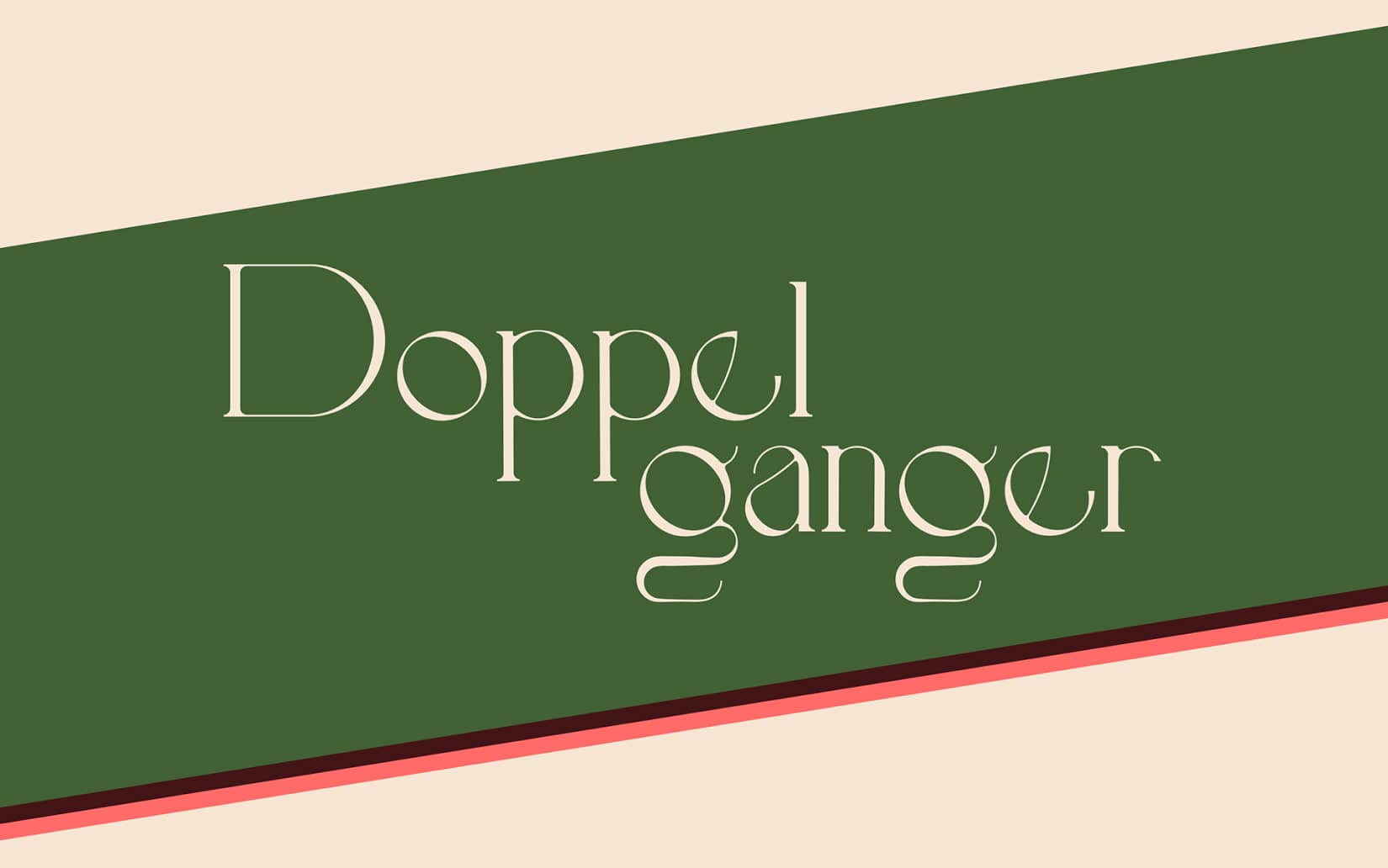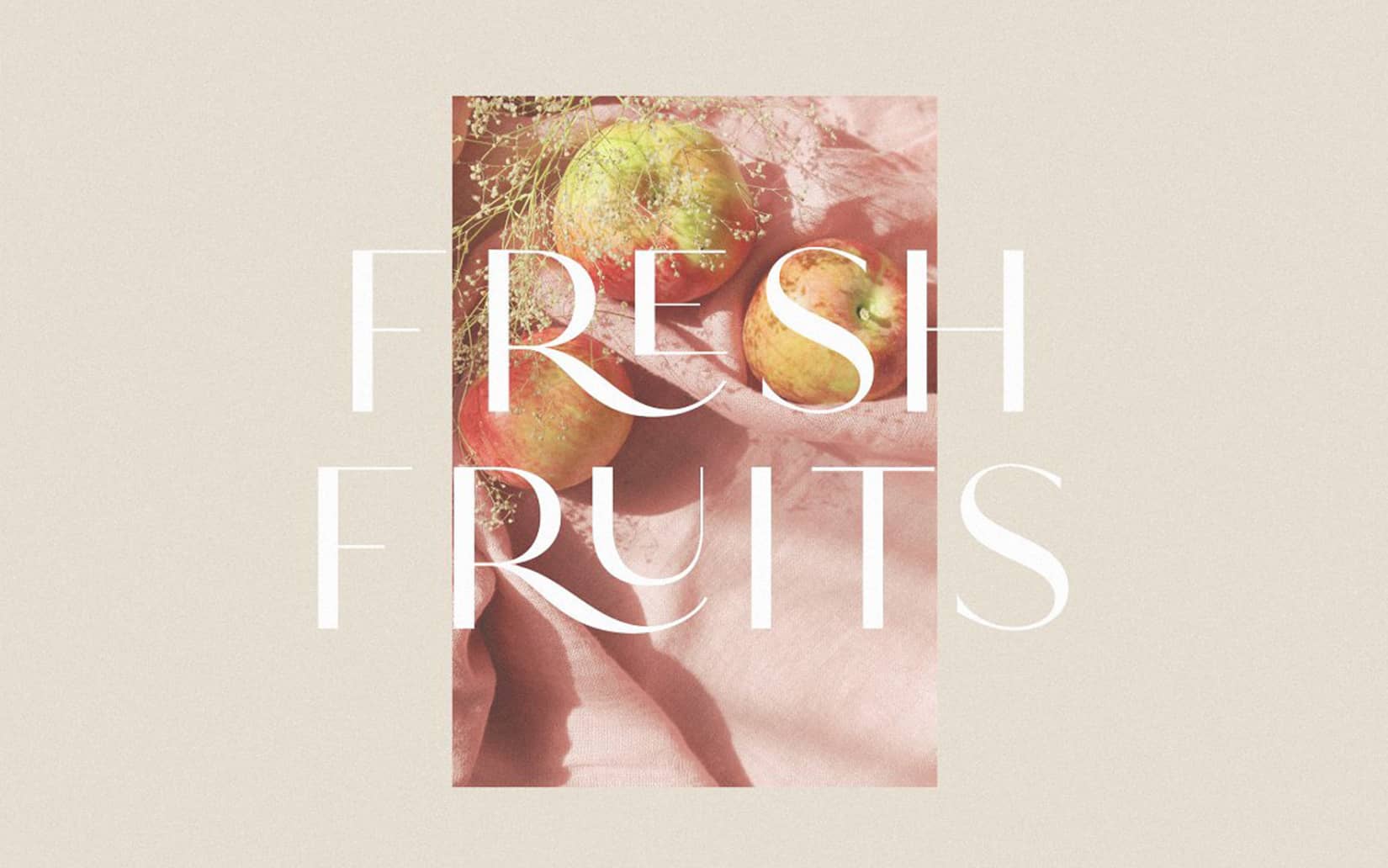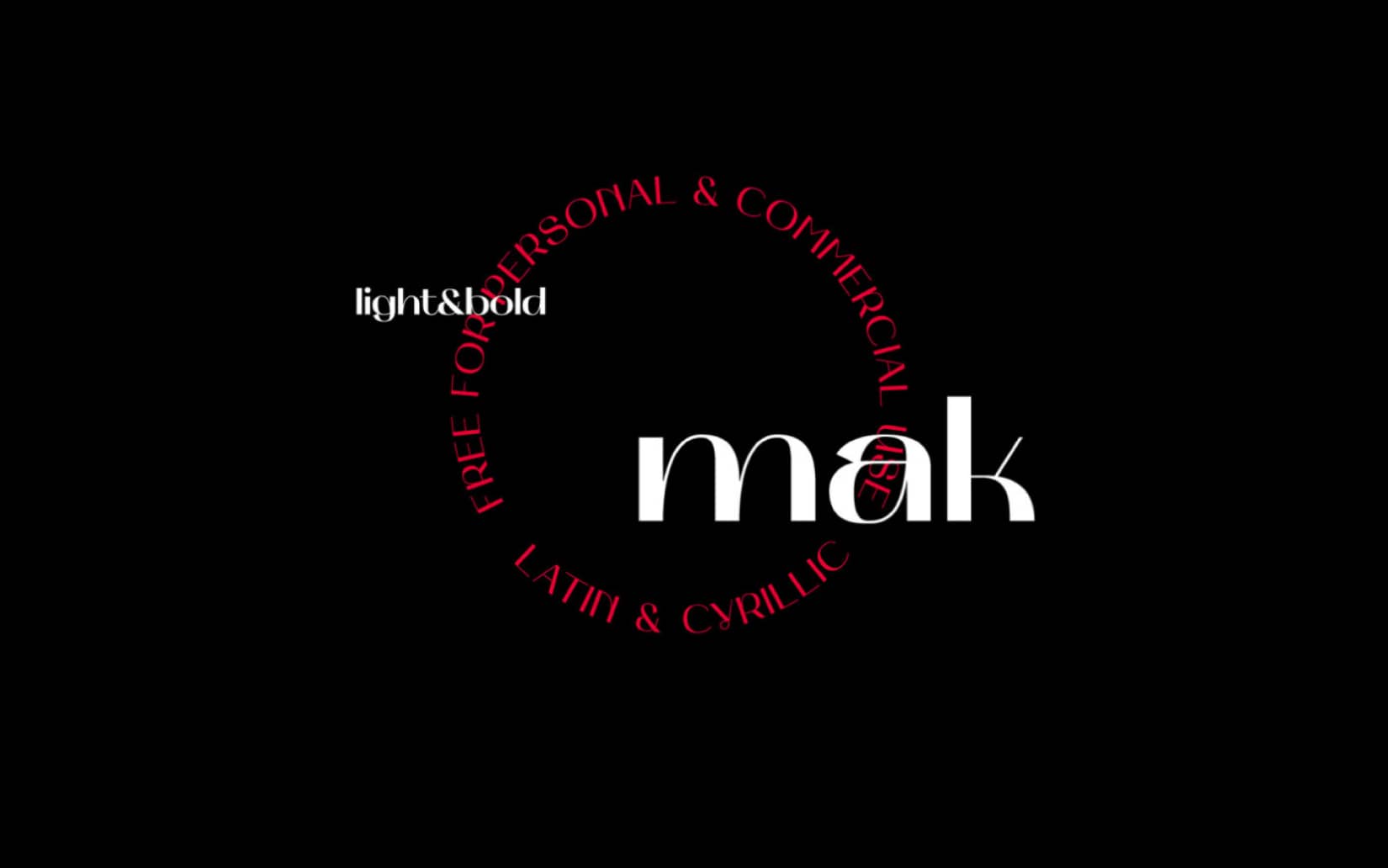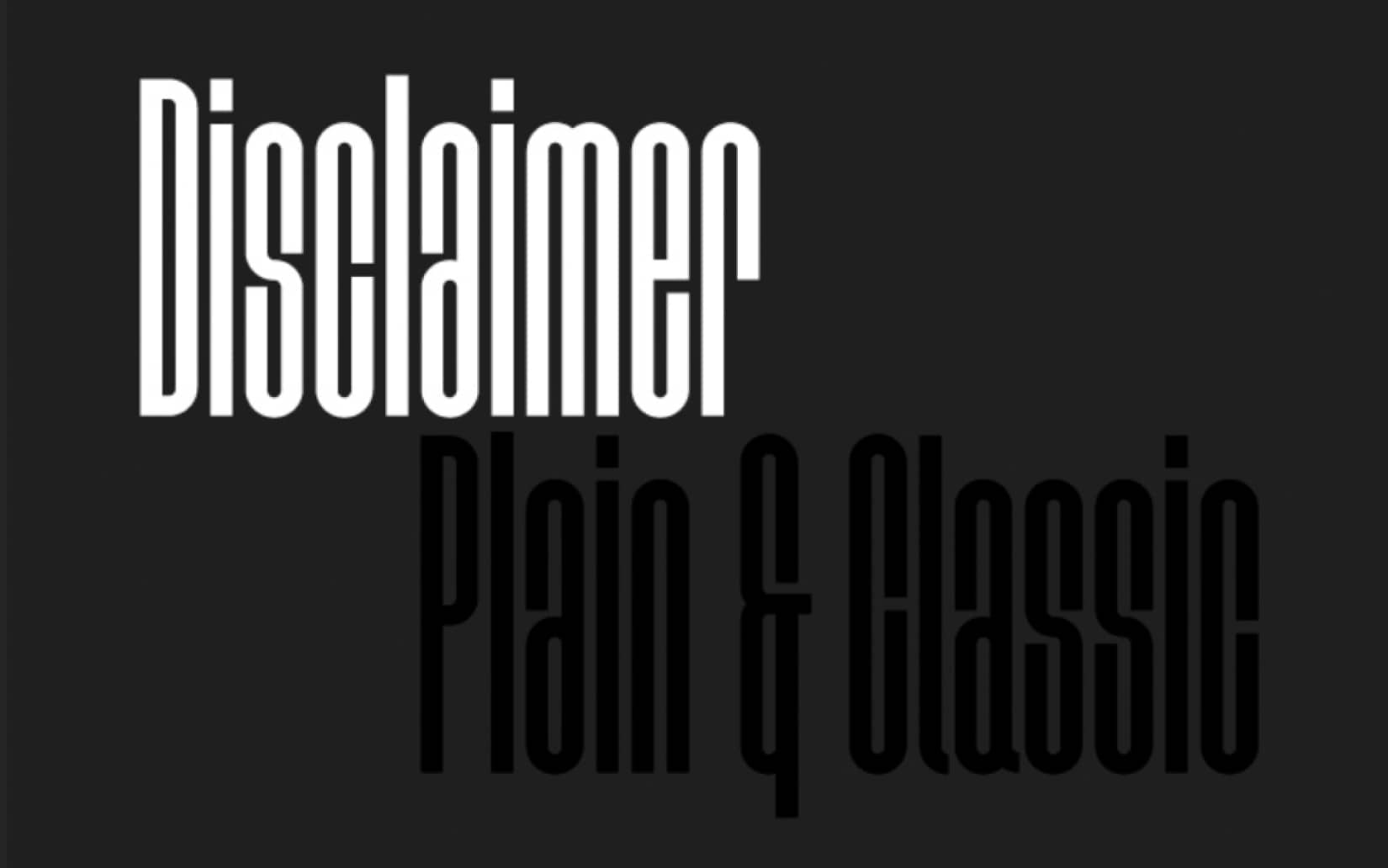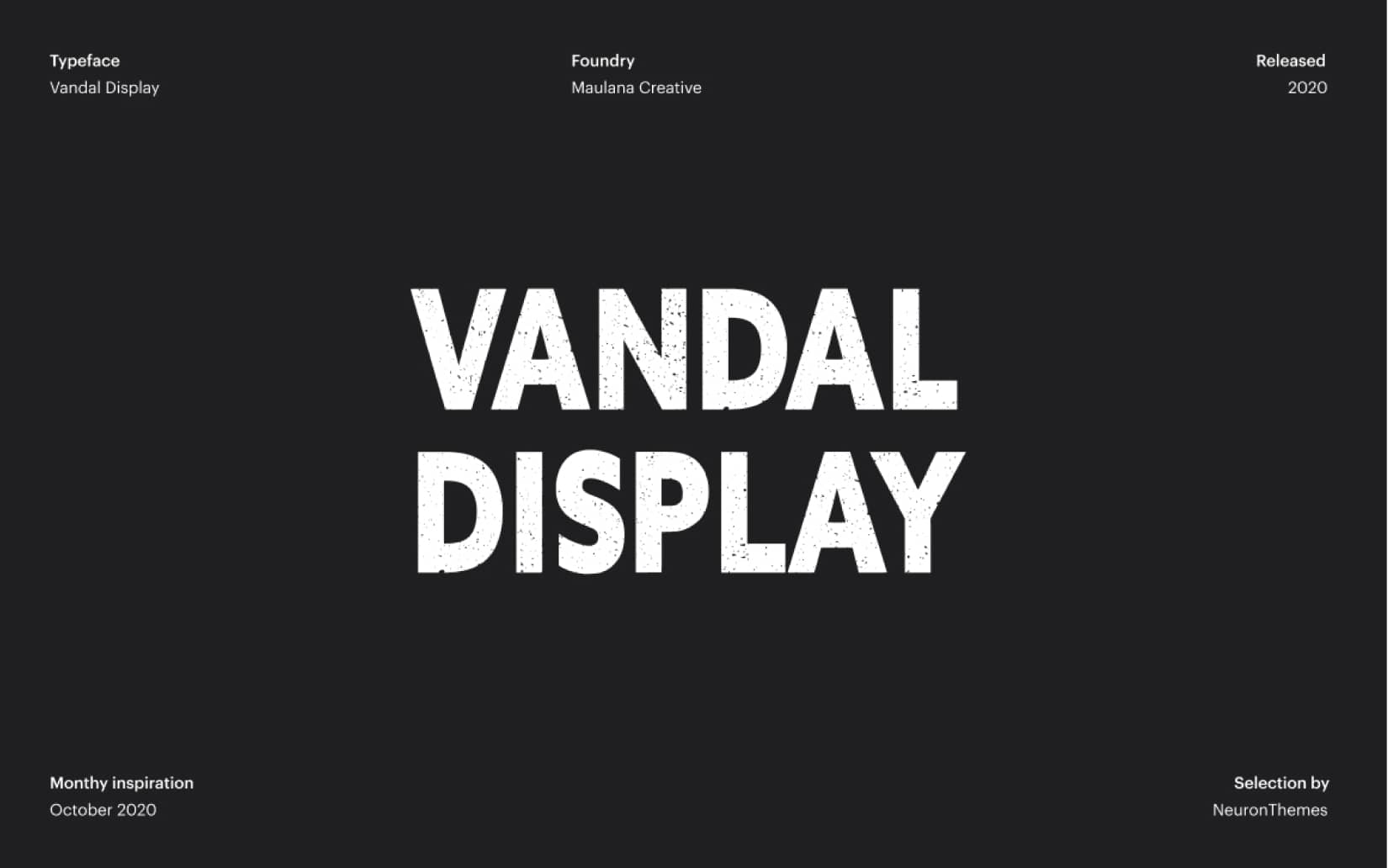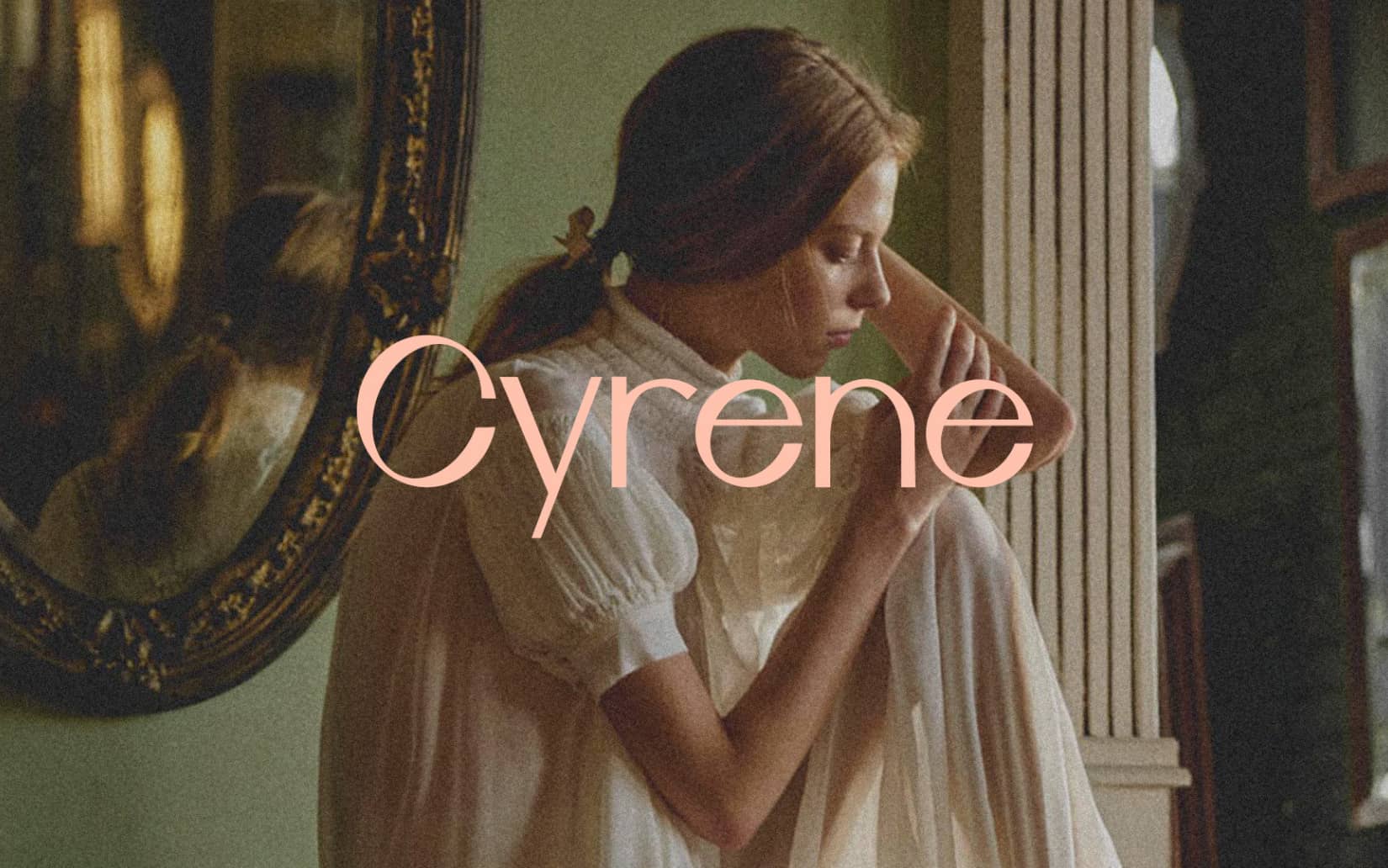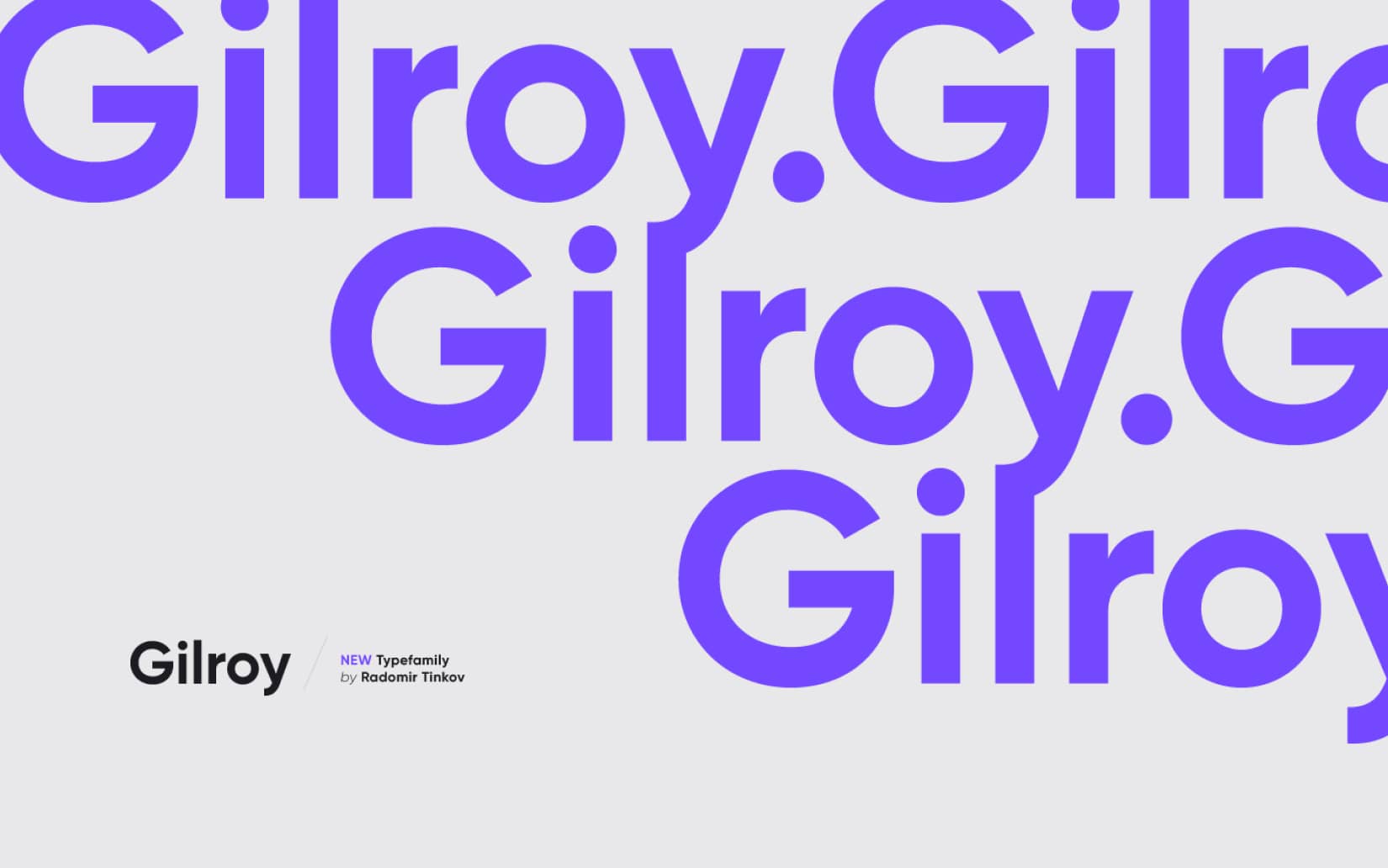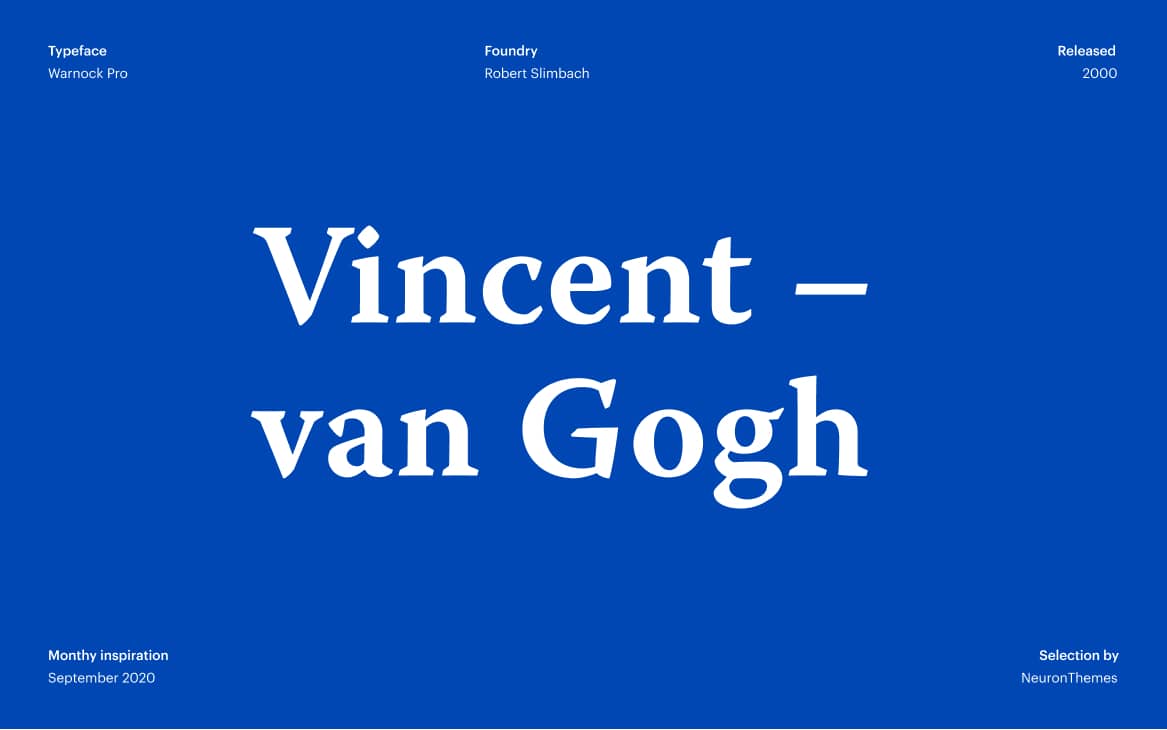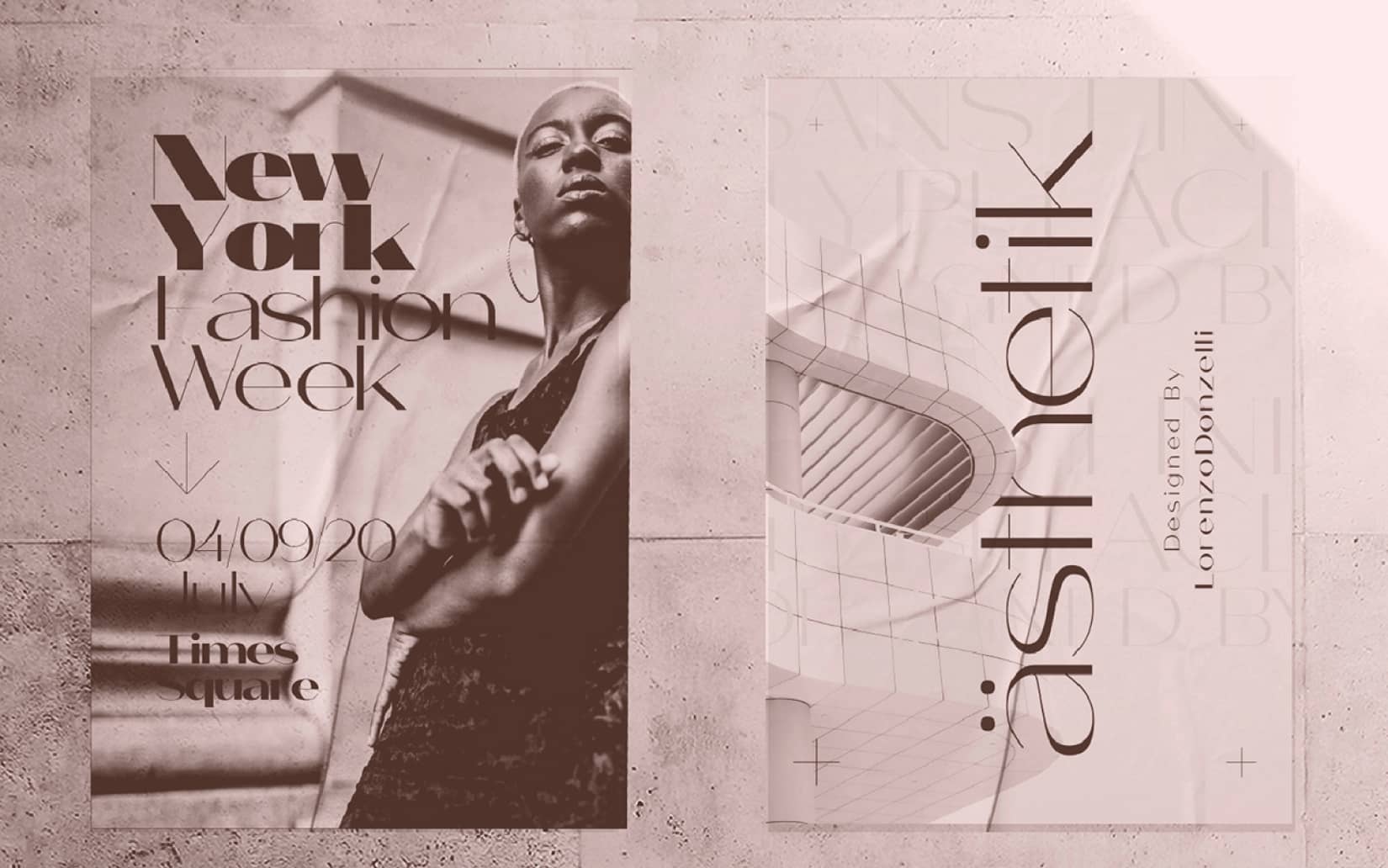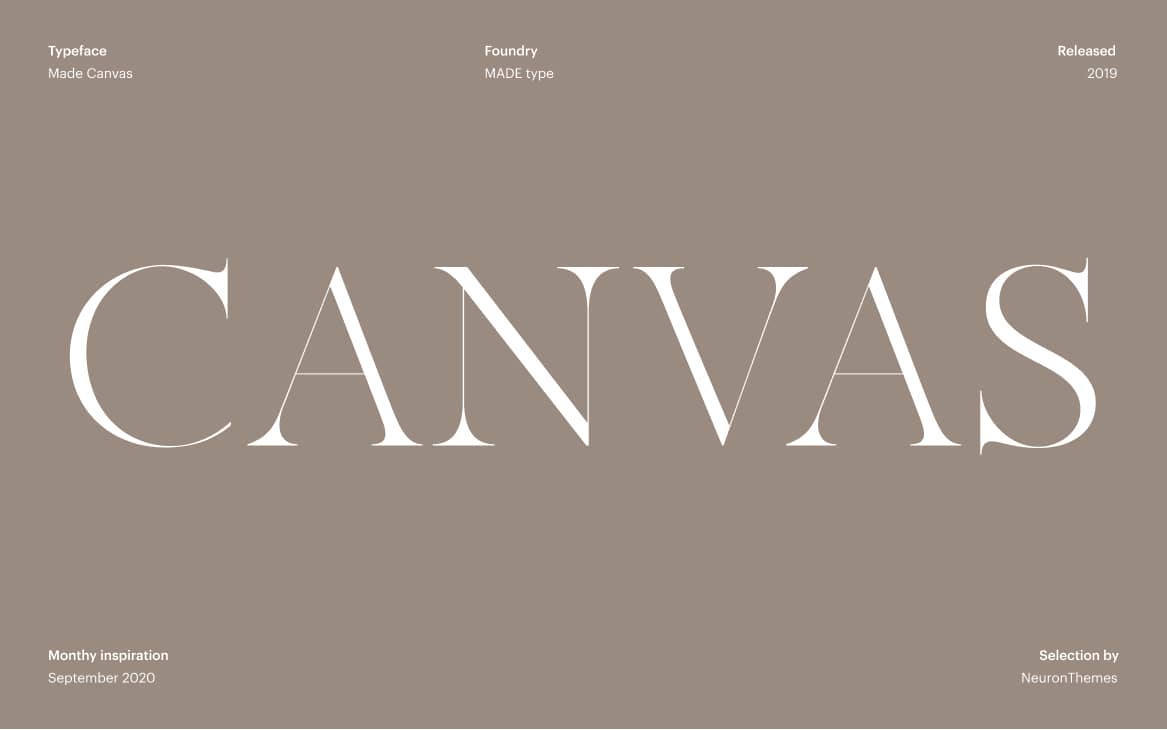
We are slowly but steadily establishing a typography series where we are trying to disseminate all our oldest tricks from the book in terms of web design and its best practices. We've already released an article that contains the rarest serif and sans serif fonts which you can download for free and integrate them either on your next personal project or commercial use. We have updated the list and added a plethora of the best free serif and sans serif fonts and more are yet to come.
For this next article, we've decided to build up a compilation of some of the best and fancy display fonts to download for free. Typography is one of the most essential components for your design, and a typeface can either make it or break it. But do not worry, Neuron to the rescue. With this comprehensive guide list of best free display fonts, you will most certainly make a perfect choice.
Fonts will help you process information, convey the right message, and set the proper tone to your brand. It can be a rather challenging task, but once you extract the appropriate demographics of the intended audience and come up with the idea of your brand, then this all should be too easy.
What is a Display Font?
Enough with the chatter, let's define what a display font is and where should it be used. A display font is a typeface that's designed to be used for large headings whether it be displayed on billboards, advertisements, or magazines, it's objective is to catch the viewer's attention towards our main piece and convey the desired message.
Display fonts are part of branding as the large typeface display will incorporate all different shapes and styles and can be a little more carefree in comparison with text typeface.
The elan aesthetic of display fonts is inherited from other genres of lettering such as handcrafted signs and calligraphy. Some of the best display fonts will embody the grandeur, sophistication, and adornment of such style and give a subtle touch of modern font styles.
Display fonts range in shape and size and come in every form and style. They are characterized by individual and prominent features to allure readers and seek their attention to evoke the emotional purpose behind the font display.
The scope of these typefaces will assort from inline, script to bold, and grandiose display fonts that are unique and utterly expressive.
The difference between text and display fonts
We have already established what a display font is and made a clear statement as to where these typefaces are properly used. For this chapter, we shall give an apprehensible distinction between text fonts and display fonts and how to make use of them in your design.
As a general rule, a tex font is one typeface that's designed to be intelligible and readable at a small size. These types of fonts are usually are inclined to a more idyllic style, one that's simple, clean, coherent, fewer design features, thin strokes, and more space between the letters.
Meanwhile, a display font is a typeface that's designed for an enormous exhibit, one that embodies a strong, expressive personality, audacious shapes and provides a more stylish look.
Both text and display fonts can be interchangeable on rare occasions, especially now with the technological advancement, nevertheless, a text typeface when used on large proportions can look maladroit, cramped, and unappealing. That is why both typefaces are distinct in spacing, proportions, and details.
How to select a display font?
Type and typography are visual media that comprise the essential elements for a design. Choosing the right typeface for your project can be a rather challenging task. We already established that a display font is considered a typeface larger than 14 points in size, and aims to attract the attention of the viewer.
Although nowadays, selecting a proper display font can prove to be a difficult selection, due to a large number of display fonts, all with their unique presentation and character as well as the technological advancement allowing any typeface to be set at any size, regardless of the original intent of use.
In the first period of the article, we discussed the difference between text typefaces and display fonts and came to the conclusion that text typefaces tend to be more readable on small screens and sizes, and include clean and consistent design features.
On the other hand, a display font foresees the typical features of text typefaces and overcomes the need to be read at large blocks of text. The space between the letter can be smaller and you can experiment with shapes and strokes to offer a more distinguishable look.
Display fonts are usually more elaborate, expressive, and convey a stronger voice and character, thus making them perfect for large displays and branding. A display font will make the perfect choice for a billboard or poster, a book cover or other packaging, or an advertisement in a magazine.
Best free display fonts